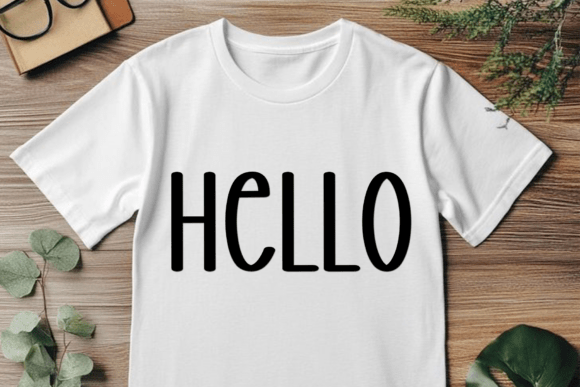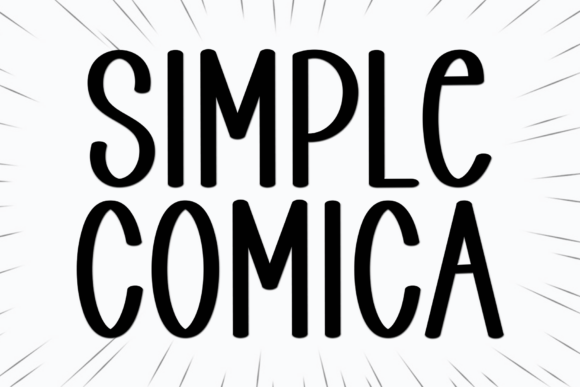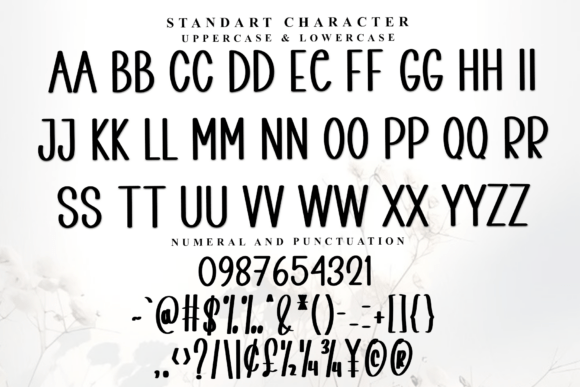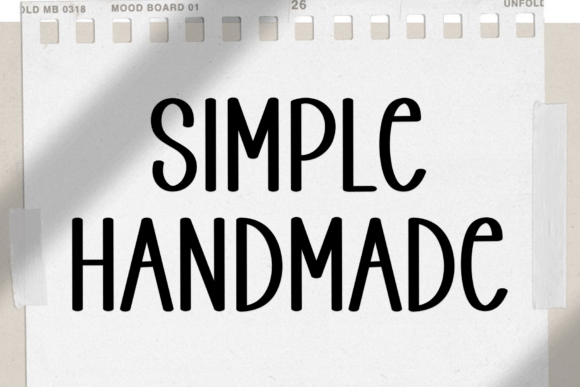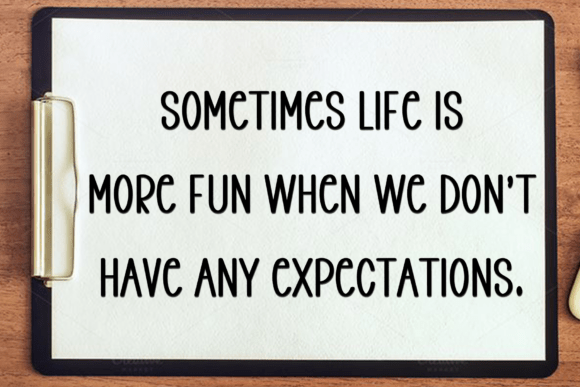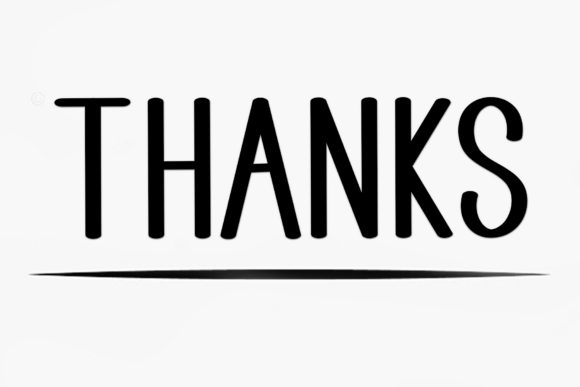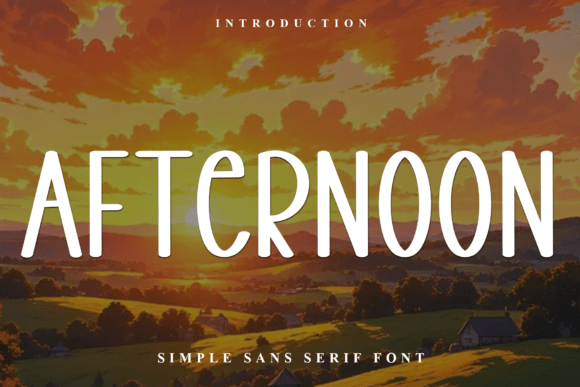
Introducing Afternoon Font: Elevate Your Designs with a Unique Touch
Are you tired of using the same old fonts in your design projects? Look no further than Afternoon Font, a beautiful and eye-catching typeface that adds a soft, unique touch to any creative work. With its distinctive strokes and versatile character set, Afternoon Font is the perfect choice for designers, crafters, and artists looking to make their designs stand out.
The Beauty of Afternoon Font
Afternoon Font is designed with a special character that sets it apart from other fonts. Its soft and unique touch gives it a natural, effortless feel that’s perfect for a wide range of design projects. Whether you’re working on a logo, brochure, or social media graphic, Afternoon Font is sure to make your designs look appealing and engaging.
Key Features of Afternoon Font
- Unique and Distinctive Strokes: Afternoon Font features distinctive strokes that give it a special character, making it perfect for designs that require a personal touch.
- Versatile Character Set: With a wide range of characters, Afternoon Font is ideal for use in various design projects, from crafts to creative works.
- Ideal for Design Projects and Crafts: Afternoon Font is perfect for use in design projects, crafts, and other creative works, such as logos, brochures, social media graphics, and more.
Why Choose Afternoon Font?
Afternoon Font is more than just a font – it’s a design solution that can elevate your creative work to the next level. Here are just a few reasons why you should choose Afternoon Font for your next design project:
- Enhance Your Designs: Afternoon Font can enhance your designs, making them more appealing to a wide range of audiences across different artistic and creative fields.
- Stand Out from the Crowd: With its unique and distinctive strokes, Afternoon Font can help your designs stand out from the crowd and make a lasting impression.
- Perfect for Creative Professionals: Afternoon Font is ideal for creative professionals, including designers, crafters, and artists, who are looking for a font that can help them express their creativity.
In conclusion, Afternoon Font is a beautiful and eye-catching font that’s perfect for designers, crafters, and artists looking to add a unique touch to their creative work. With its distinctive strokes, versatile character set, and compatibility with various applications, Afternoon Font is the perfect choice for a wide range of design projects. Download Afternoon Font today and elevate your designs to the next level!